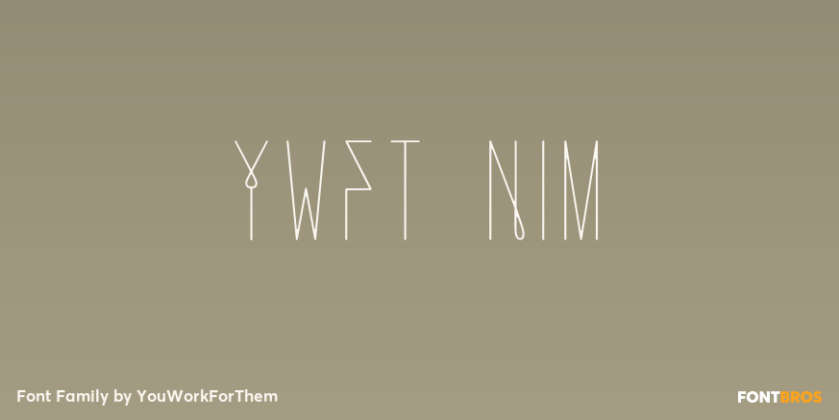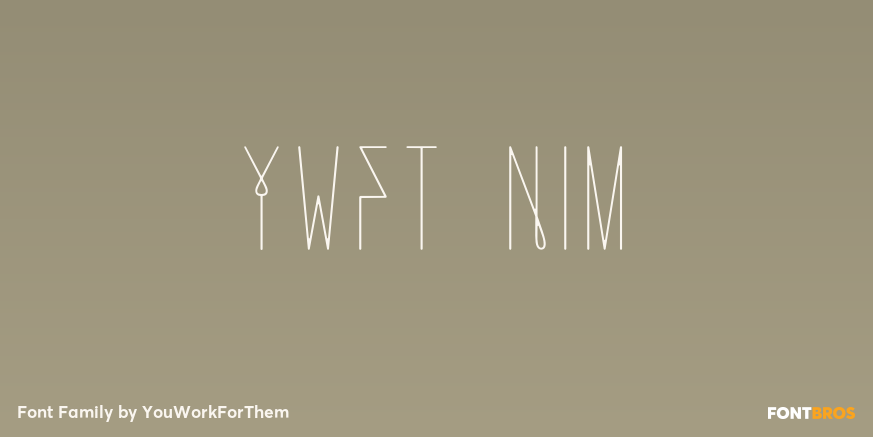
YWFT Nim
About YWFT Nim
YWFT Nim is all about layering. Bevel effects, outline effects, 3d effects, shadow effects–all are possible and uniquely powerful with YWFT Nim, making for a near-infinite amount of variety and style. Modern and clean, with a nod to architectural forms…